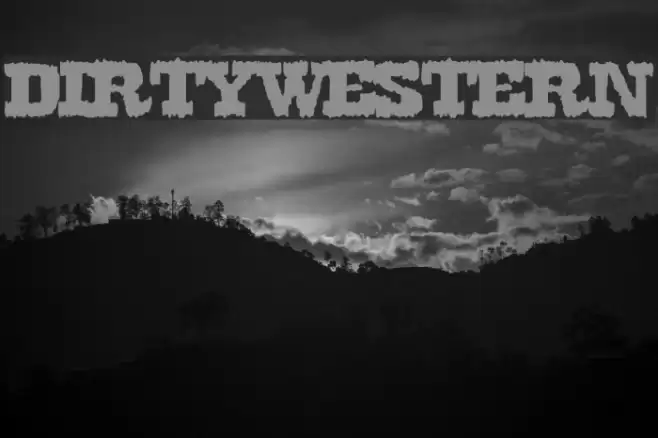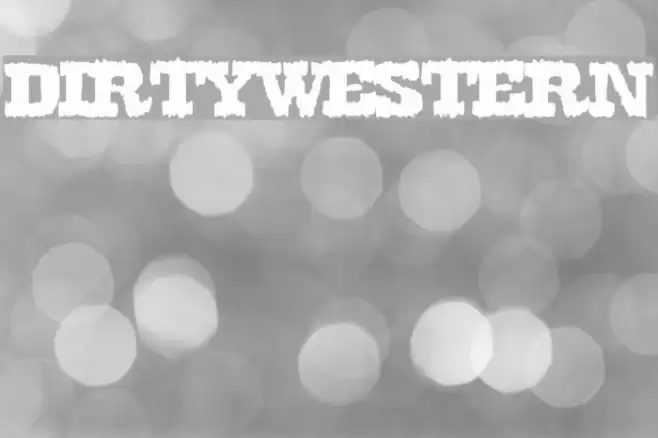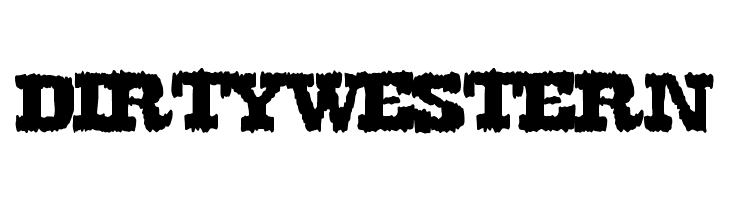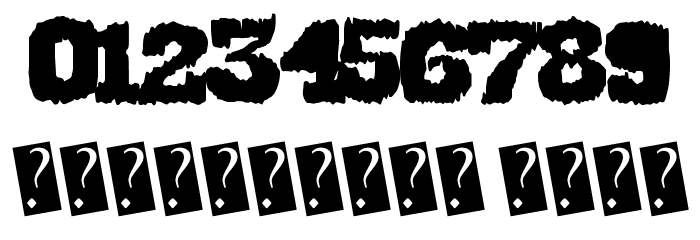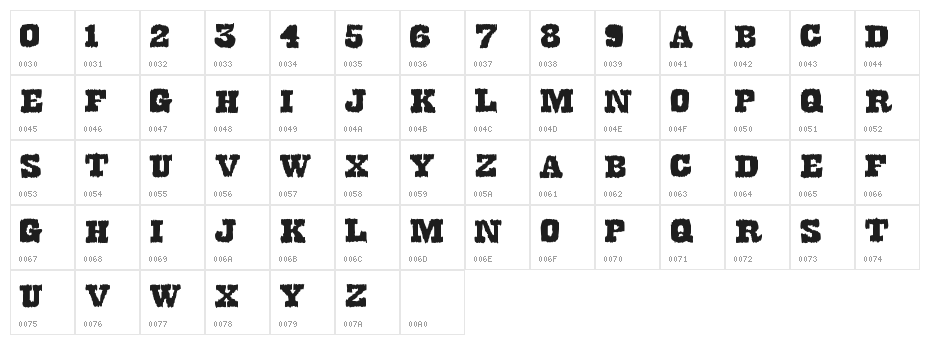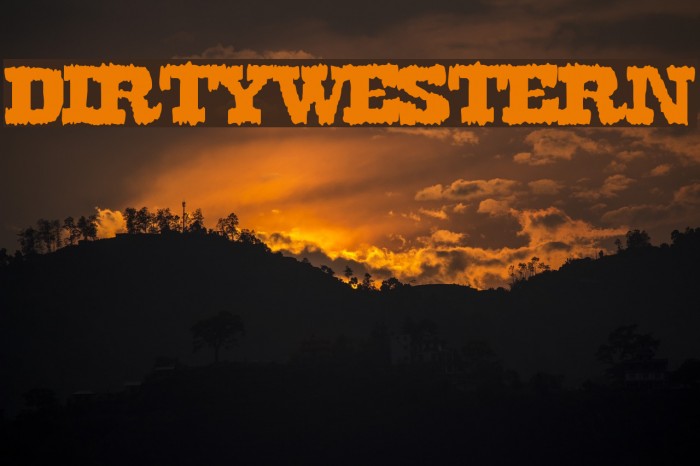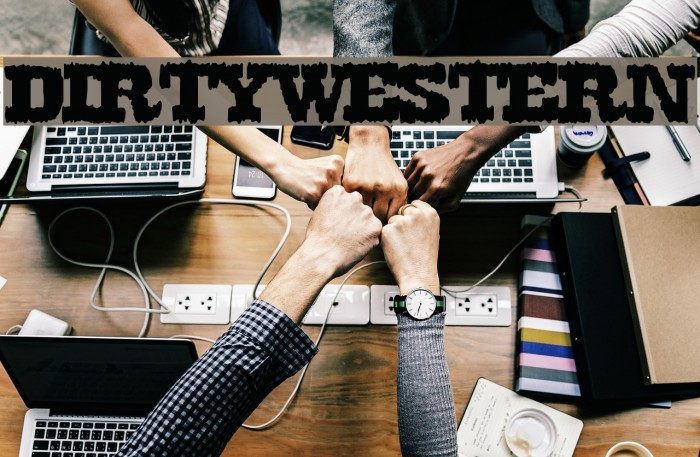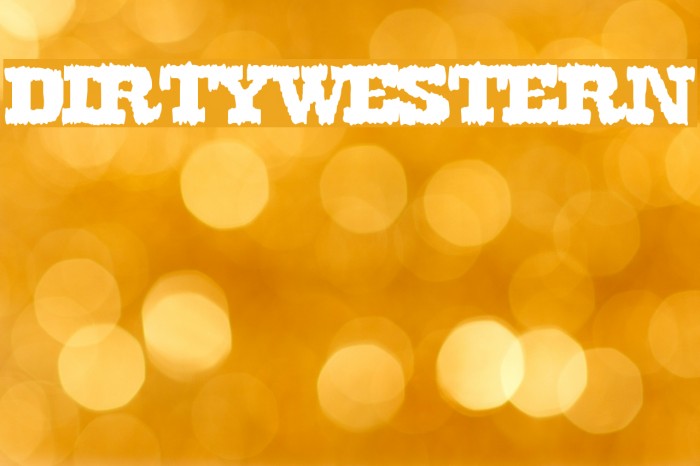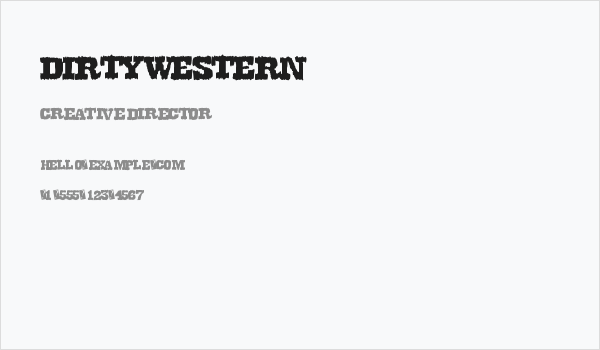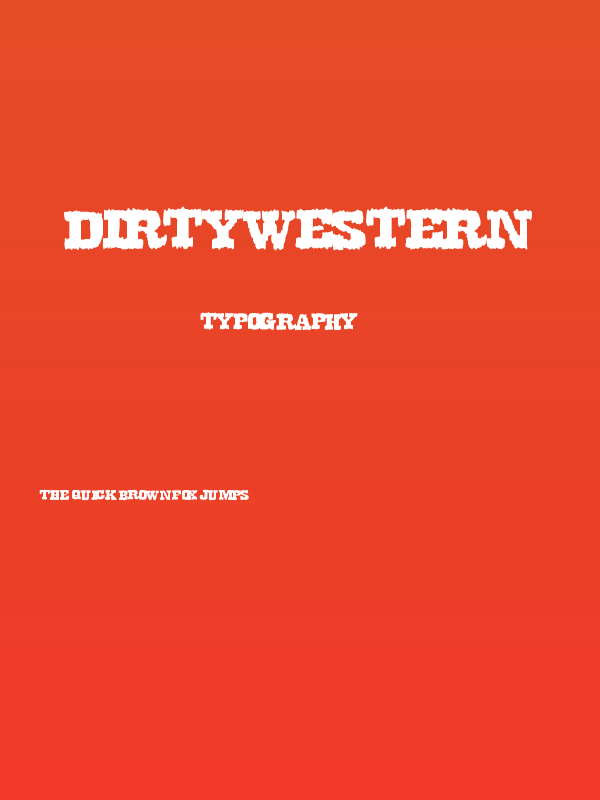
DirtyWestern Font
DirtyWestern Description
This font embodies a rugged, distressed style reminiscent of the Old West. Its bold, uneven edges and rough texture give it a gritty, weathered appearance, perfect for evoking a sense of adventure and nostalgia. The uppercase and lowercase letters maintain a consistent, bold weight, while the numbers and special characters follow the same rugged design. This font is ideal for projects that aim to capture a vintage or rustic aesthetic, such as posters, signage, or themed event materials.
A rugged, distressed font with a bold, weathered appearance from Uncategorized fonts.
- Proposed Projects: Ideal for Western-themed posters, vintage signage, rustic branding, and adventure-themed event materials.
- Overall Style: Vintage